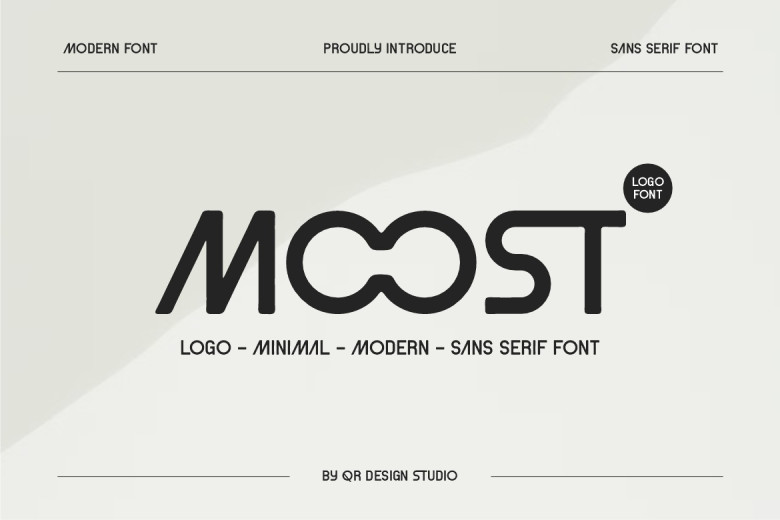
Moost Font
Moost is a sans serif font typeface. Perfect whatever the theme, this font is an exceptional addition to your fonts’ collection as it has the capability to work in any piece.
Moost Sans Serif Font